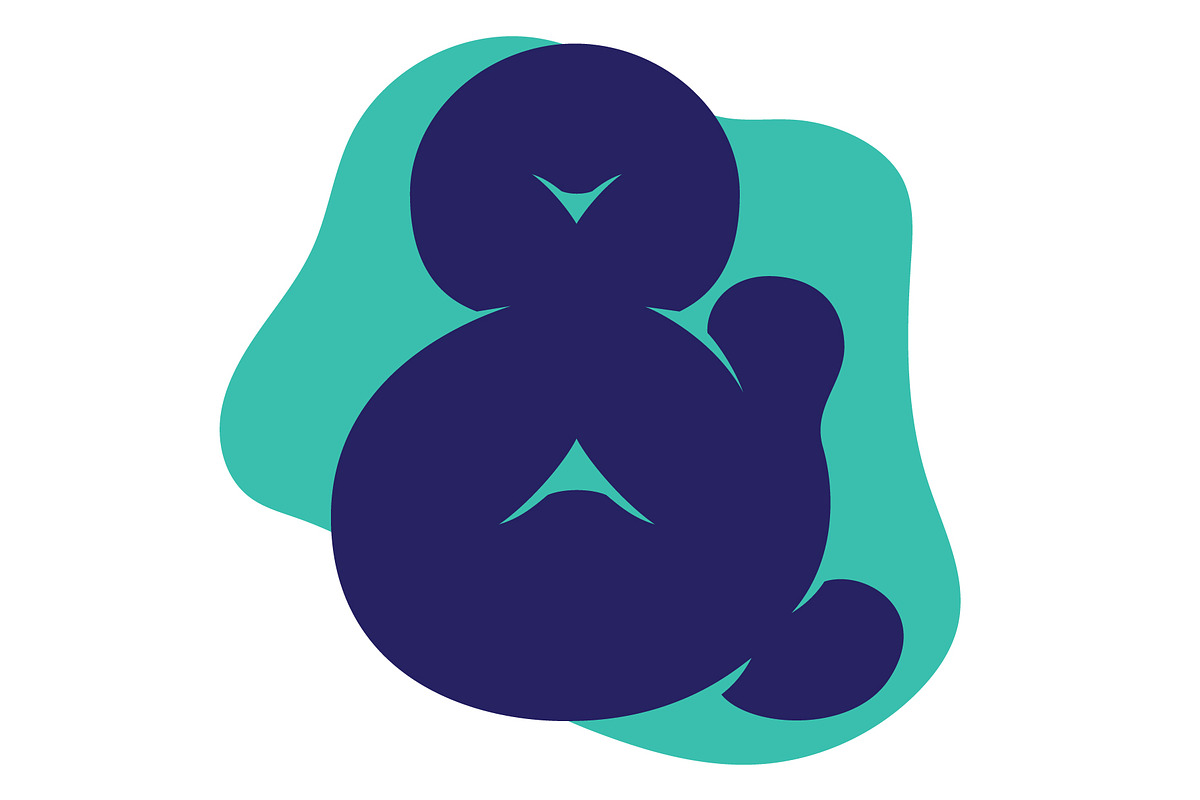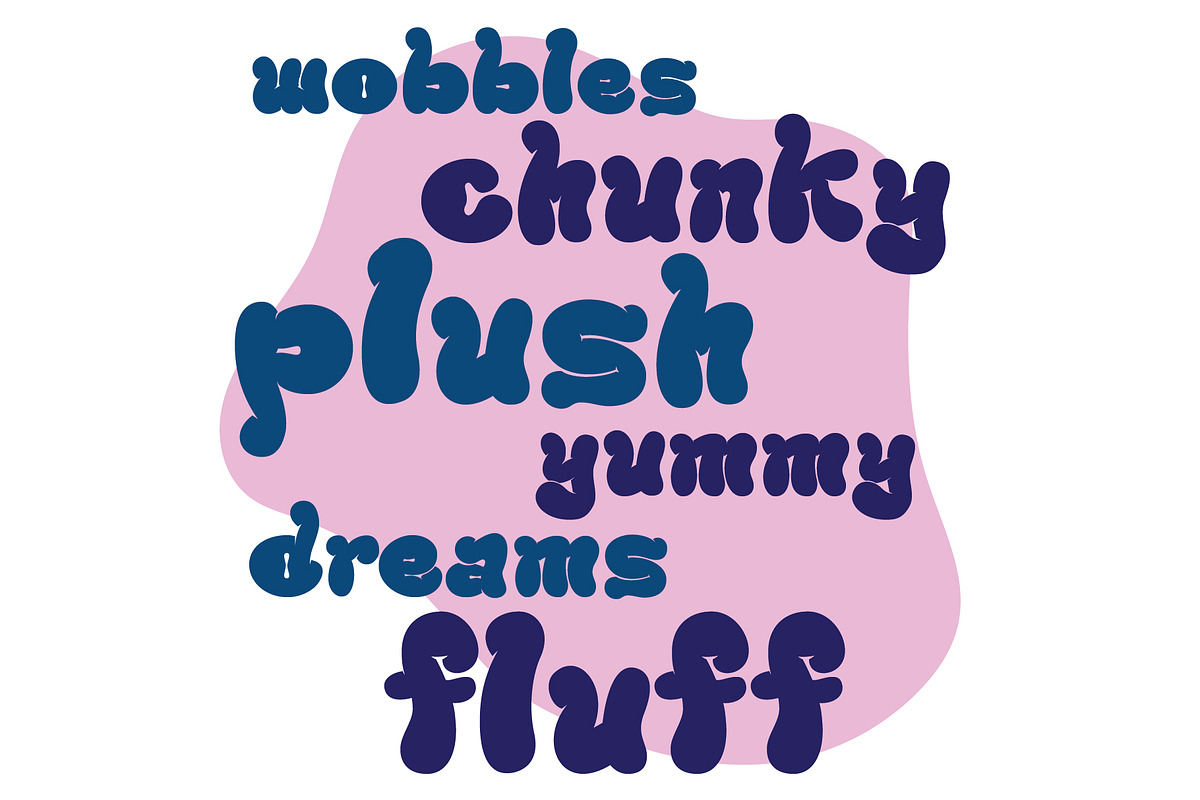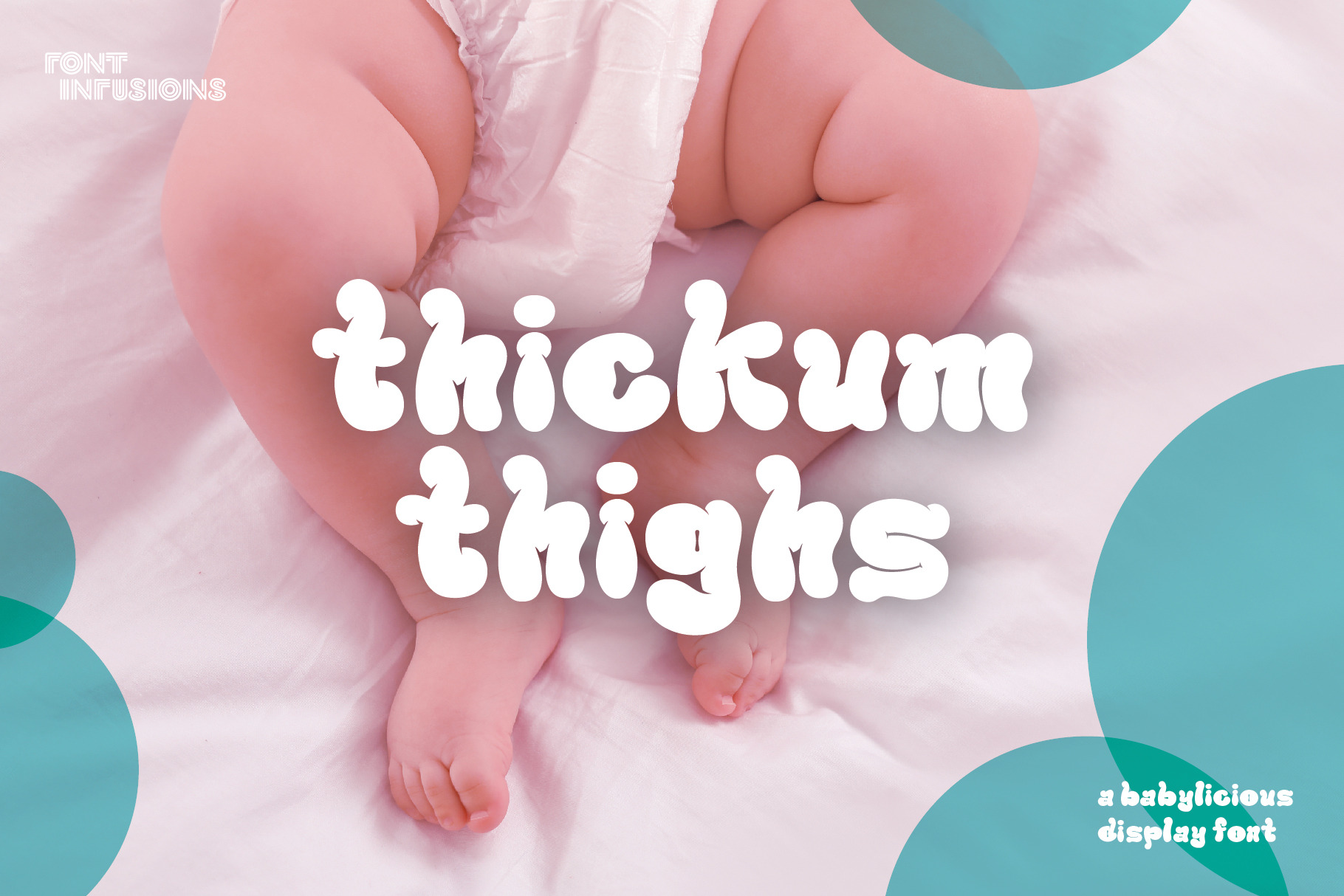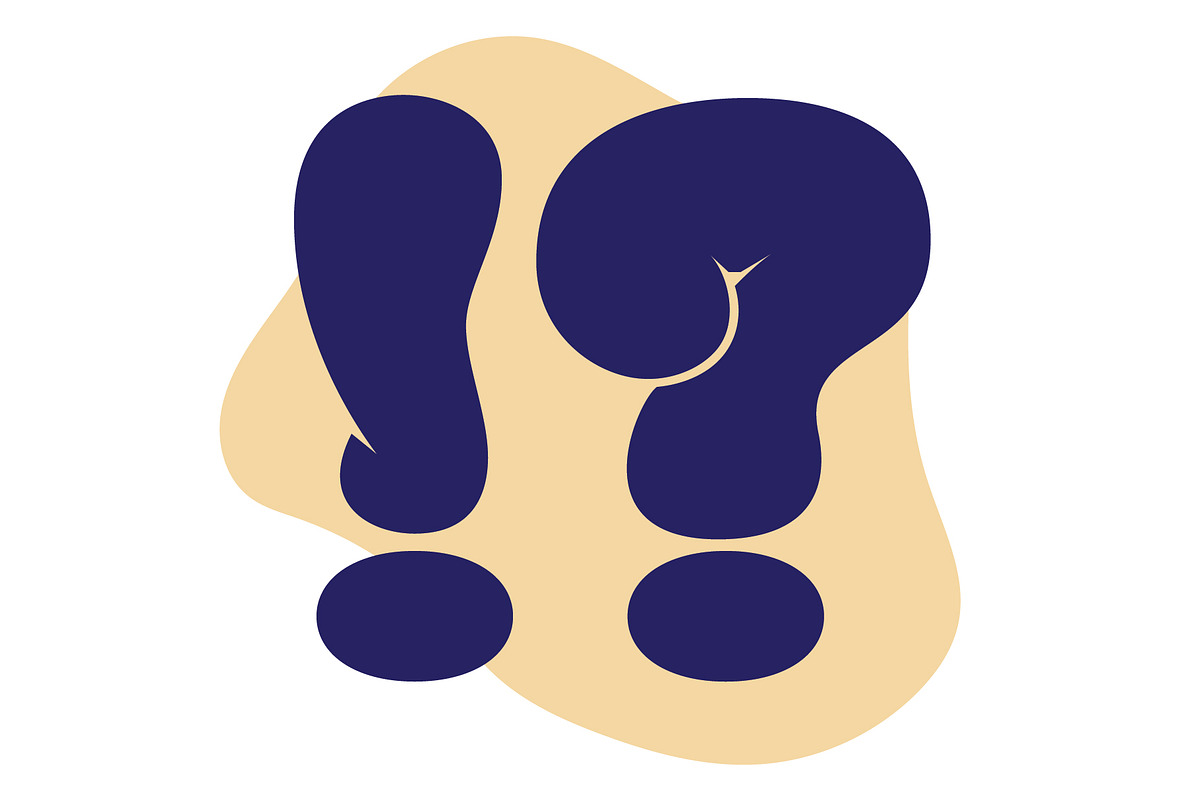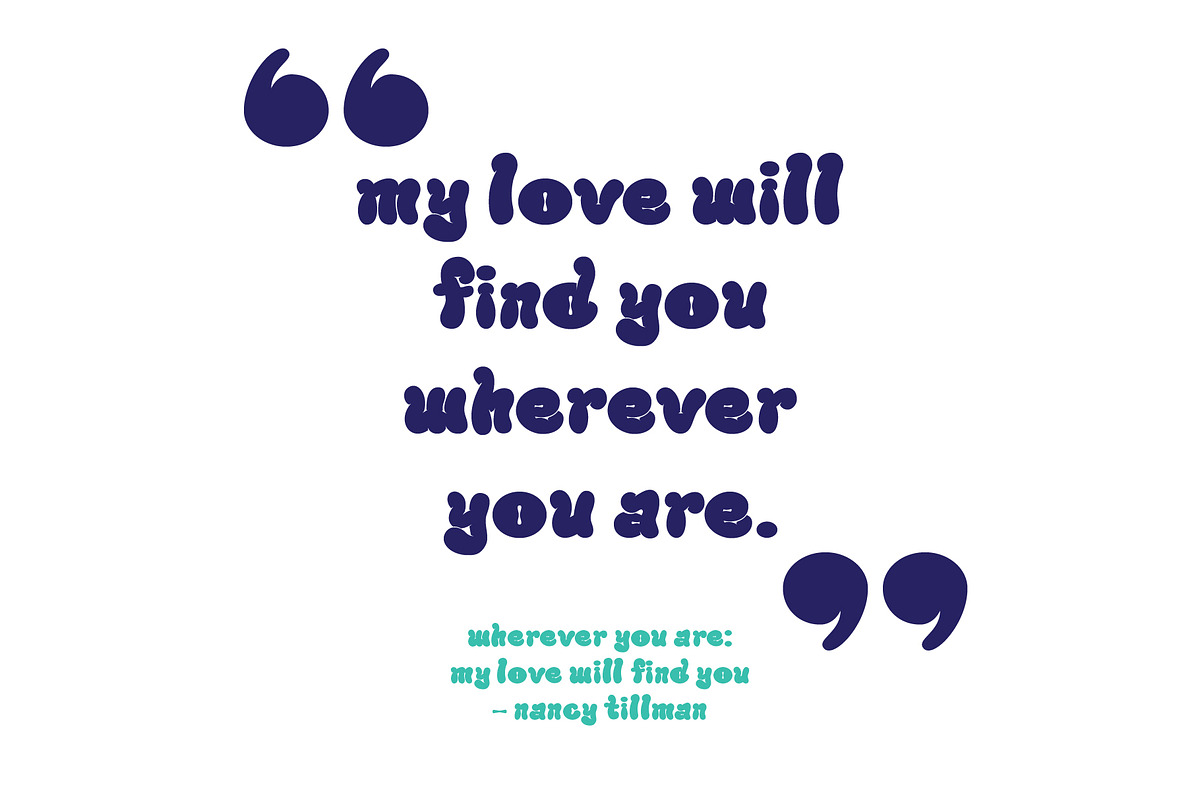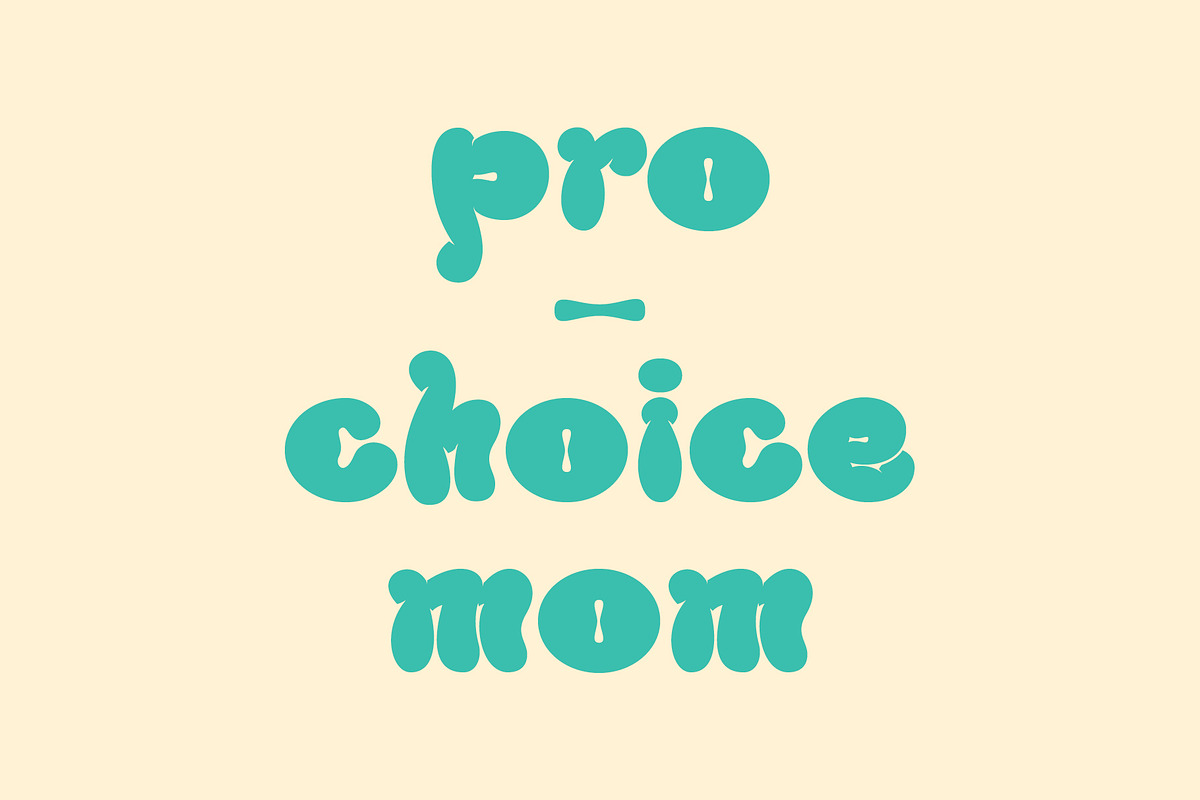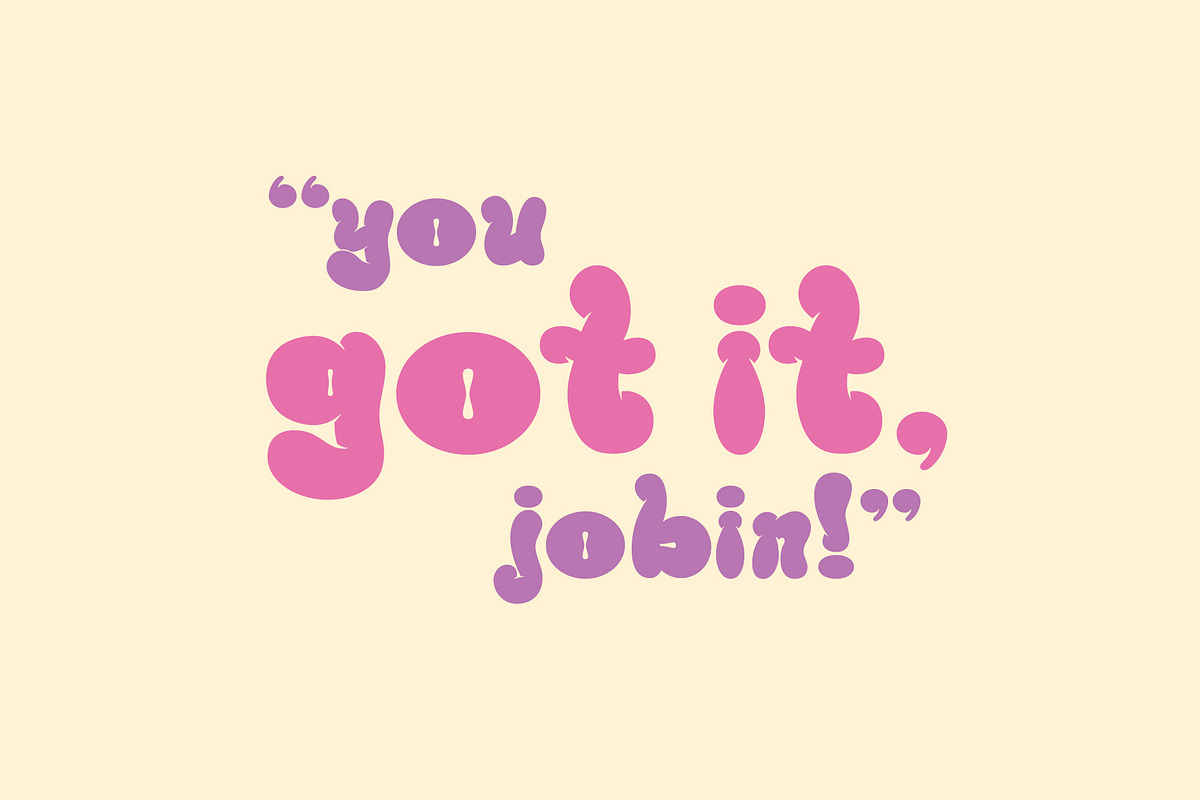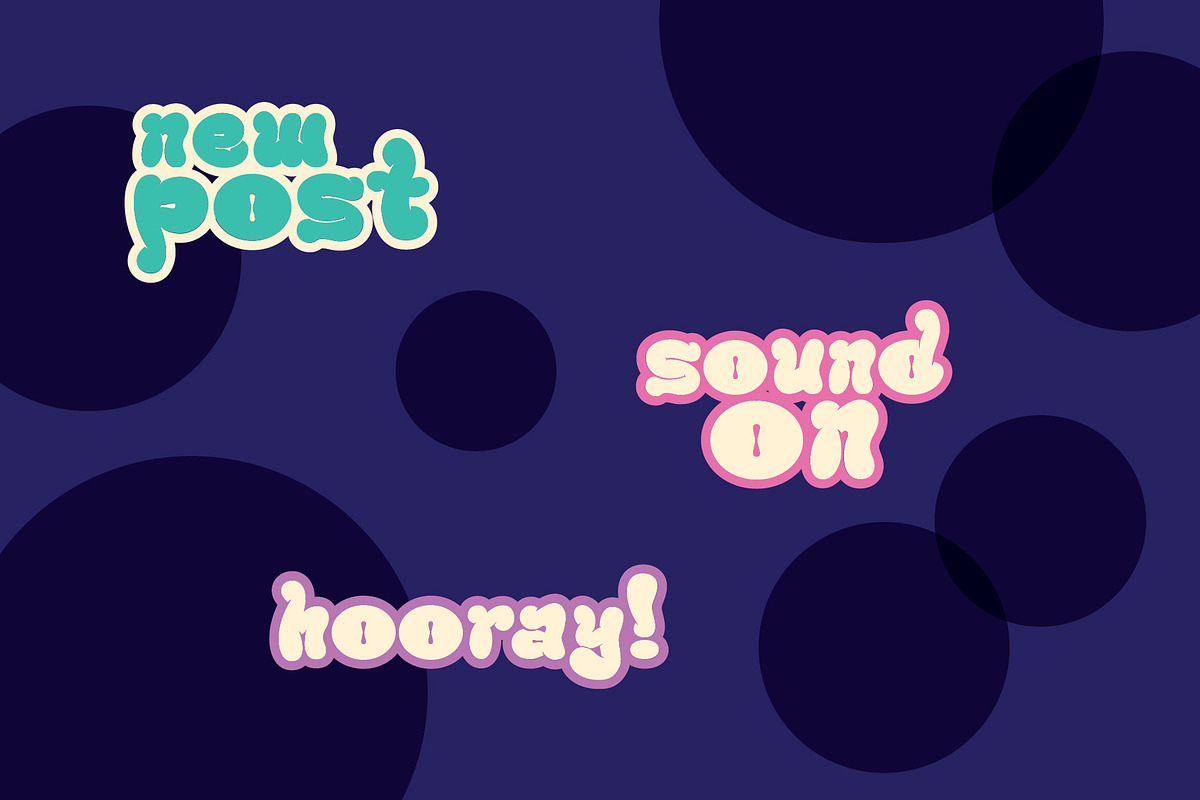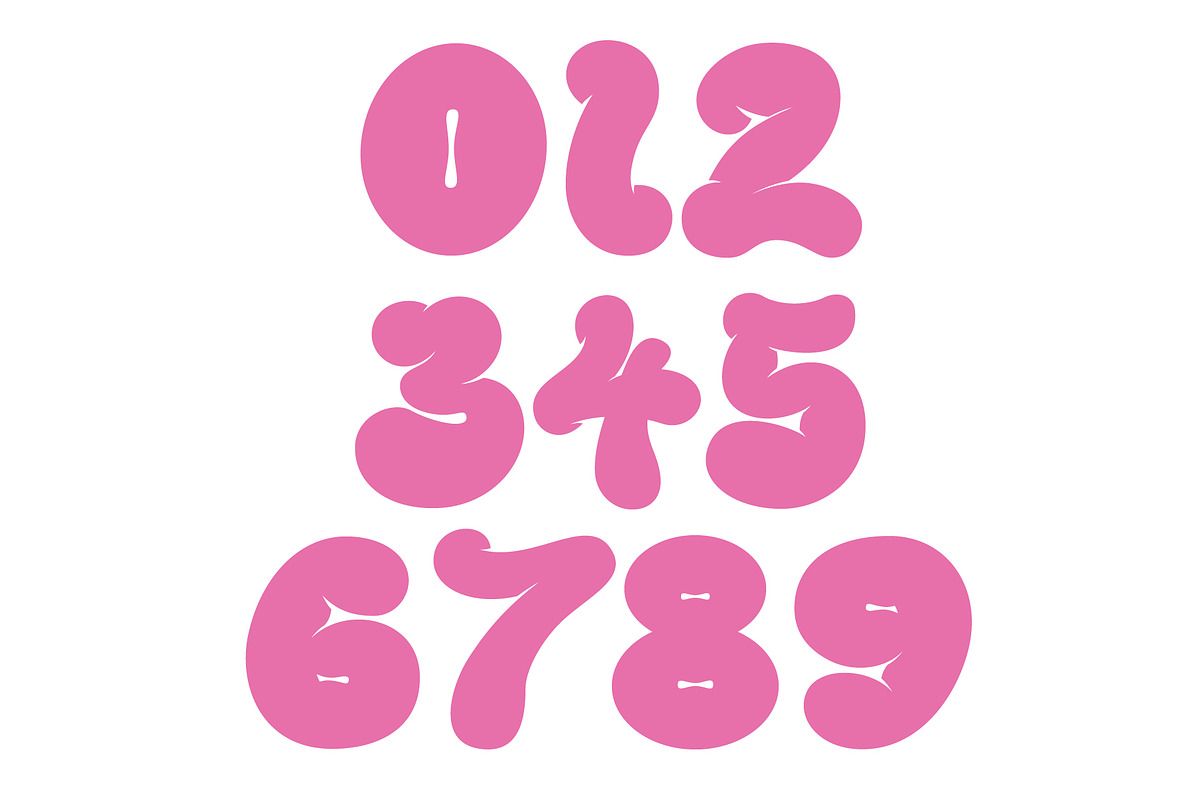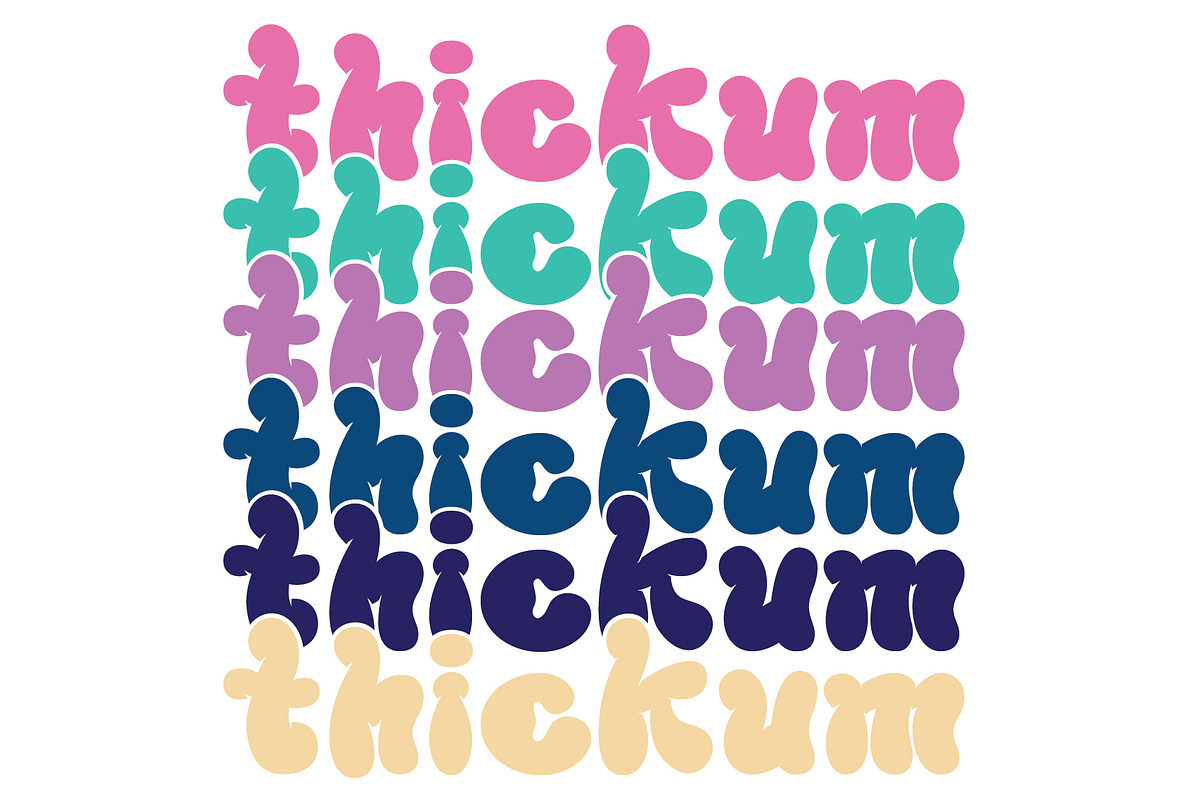
Thickum Thighs - juicy display font
Thickum Thighs is best used extra large as a display font in your next project that requires something cute, bubbly, and balloon-y.
When my daughter was born, all I wanted to do was chomp on her plump little thighs. The way the rolls would form deep crevices between the joints and how her frame could barely contain the spillage of rolls struck me right in my new mommy feels.
There’s a part of me that feels a little psychotic about having this urge to bite baby thighs, but I know I’m not alone: There is a literal science to wanting to bite or eat cute things. The phenomenon of expressing something different than what you’re feeling – in this case, wanting to eat something cute when you’re not actually feeling aggression – is called dimorphous expression.
Type Specimens Additionally, as a Filipino American, I’m excited there’s a Tagalog word for this exact phenomenon! That word is gigil, which is an adjective that means to experience overwhelming emotion (usually caused by something cute), the reaction of which is to grit your teeth or tremble.
Typography Talk To express the idea of baby thighs, I made the counters (the space in glyphs like a, b, d, e, o, etc.) super tight, almost as if the character is so overwhelmed with chunkiness so the counter can barely stay open. It’s almost like how a super-fluffy donut is so doughy that the hole is barely a hole. Also, the descenders in the glyphs g, j, p, q, and y, nearly fold back onto themselves to further express the idea of deliciously excessive plumpness.
Awards No big deal/whatevskies, but this font won an American Graphic Design Award by GDUSA and an Honorable Mention in the 2023 Creative Communication Award by C2A.